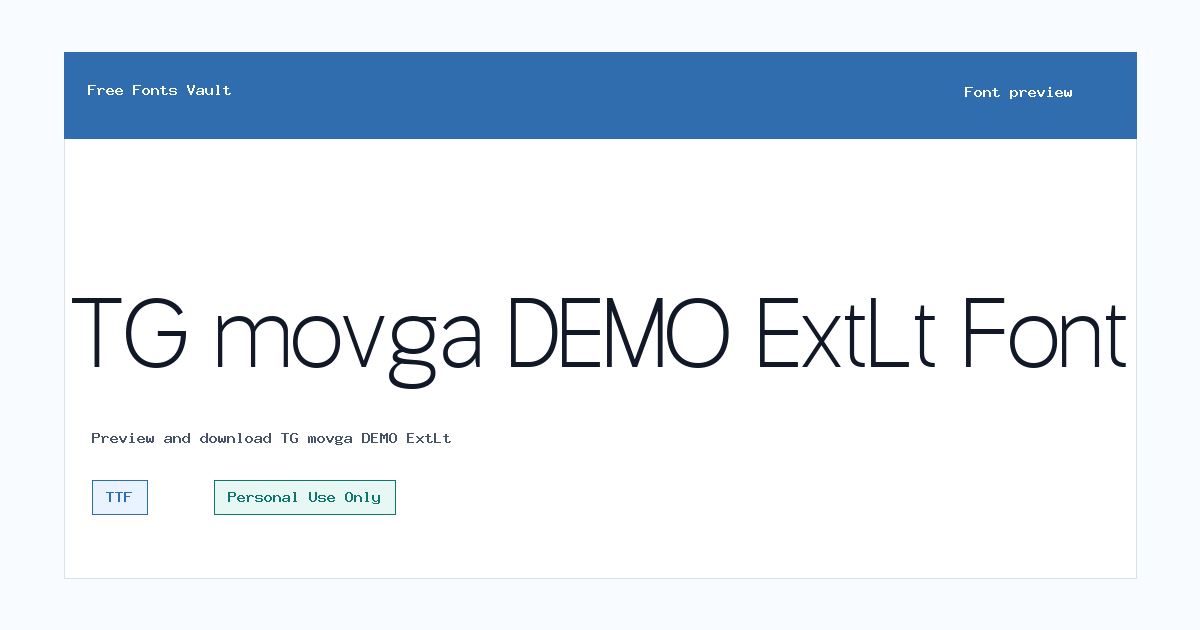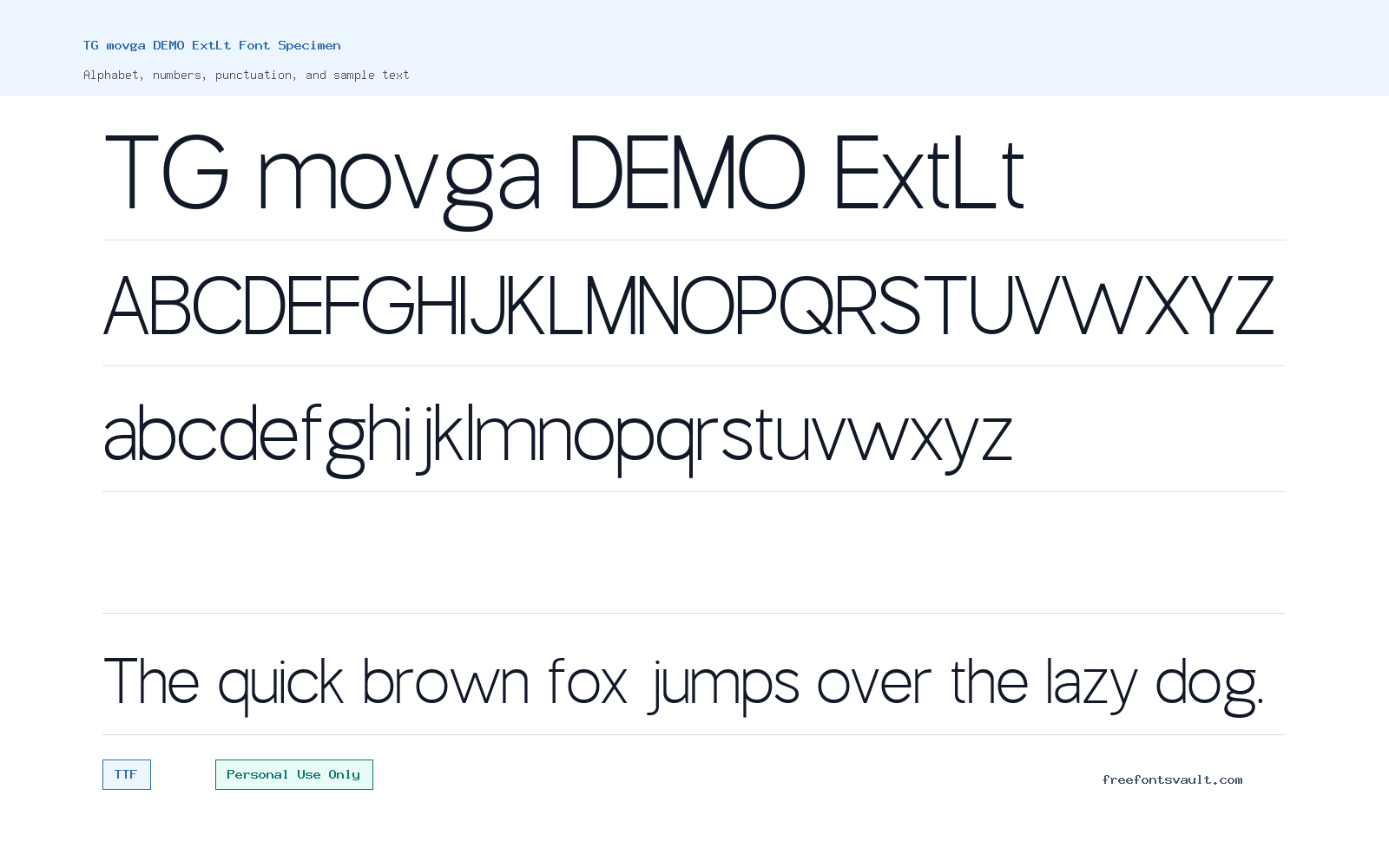
TG movga DEMO ExtLt
- Designer Mukhamad Rafly Makhbuby part of Typogrid
- Foundry Typogrid
TG movga DEMO ExtLt font.
TG movga DEMO ExtLt is an extra-light demo style from the TG Movga sans serif font family. It is best approached as a clean, lightweight display option for personal projects, early logo ideas, poster drafts, and visual layout testing.
About TG movga DEMO ExtLt
TG movga DEMO ExtLt uses a very light weight, which gives text a fine, airy presence. Because the file is marked as a demo extra-light style, it works best when you want a quiet, minimal look rather than a heavy headline. Thin sans serif fonts can feel refined in large sizes, but they can lose impact if they are used too small or placed over busy backgrounds. For the best preview, try short words, brand-style names, simple poster headlines, and spacing tests before deciding whether it fits your design.
This font is especially useful for testing modern layouts where the type should not overpower the page. It can suit personal logo drafts, mood boards, web mockups, social graphics, editorial headings, and clean title treatments. If you are planning a logo or brand concept, test the letters that matter most: the first and last characters, repeated letters, numbers, and punctuation. Extra-light fonts often need careful spacing, so try increasing letter spacing for uppercase words and avoid using the font for long paragraphs unless the preview stays easy to read.
- Extra-light sans serif style with a thin, understated appearance.
- Normal style with a listed font weight of 300.
- Useful for testing short display text, names, titles, and layout concepts.
- Personal logo concepts and brand-name mockups.
- Minimal poster titles and event draft artwork.
- Website hero text tests and landing page mockups.
- Mood boards, style frames, and presentation layouts.
- Social media graphics where the text is large and uncluttered.
- Pairing experiments with stronger text fonts for body copy.
TG movga DEMO ExtLt is credited to Mukhamad Rafly Makhbuby, part of Typogrid, with Typogrid listed as the foundry.
Use TG movga DEMO ExtLt at larger sizes where its thin strokes can stay clear. It is a better choice for short text than for dense reading. When pairing it, choose a more readable sans serif or serif for body text so the extra-light style can remain a headline or accent. On posters and web mockups, keep the background simple, increase contrast, and test spacing carefully. For logo work, preview the exact brand name before relying on it, because very light weights can change the balance of letters and may not reproduce well at small sizes, on low-resolution screens, or in print processes that soften thin strokes.
What kind of font is TG movga DEMO ExtLt?
It is listed as a sans serif demo font in an extra-light style, with a normal style setting and a weight of 300.
Is this font good for logos?
Can I use TG movga DEMO ExtLt for body text?
It is better for short display text. Because it is extra-light, long paragraphs or small sizes may be harder to read.
What should I pair with this font?
Pair it with a clearer, sturdier font for body text. A regular-weight sans serif usually works well because it keeps the layout readable while TG movga DEMO ExtLt handles headings or accents.